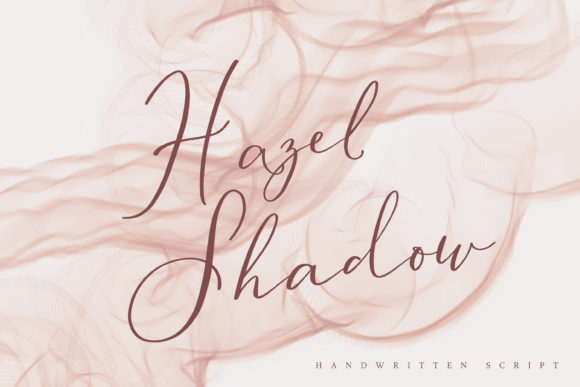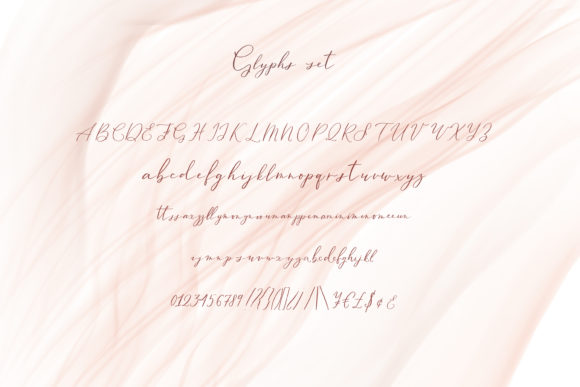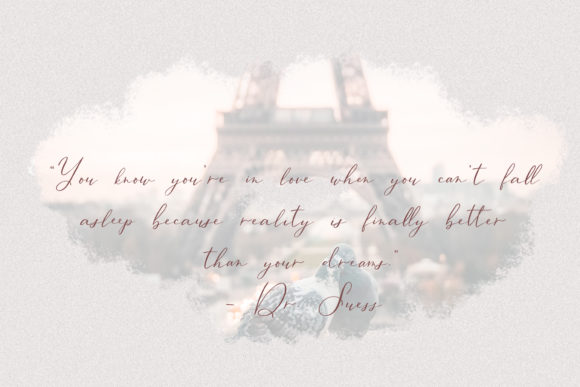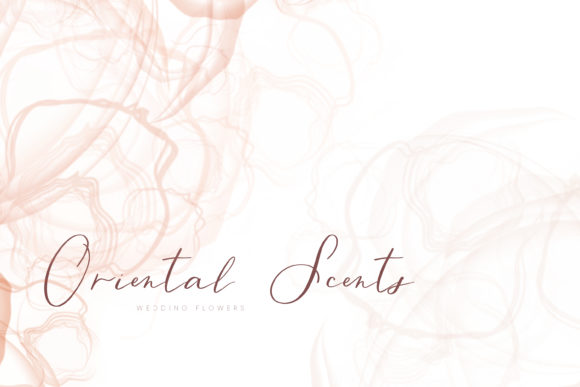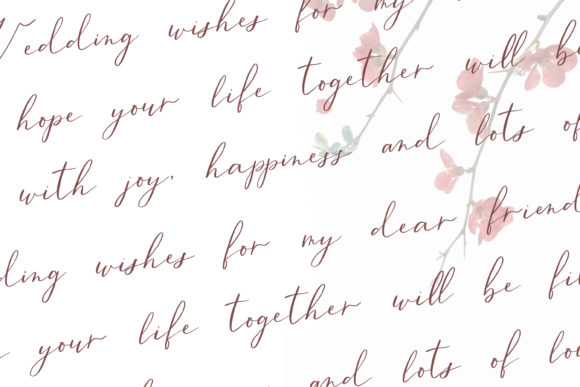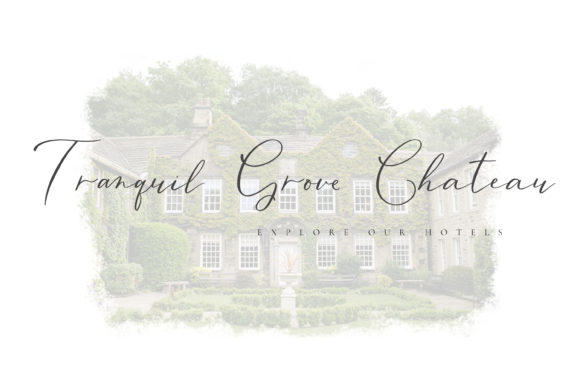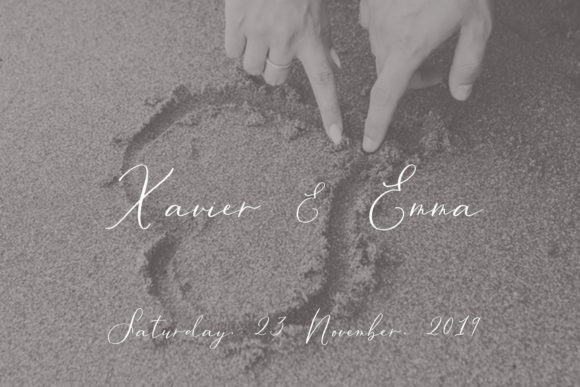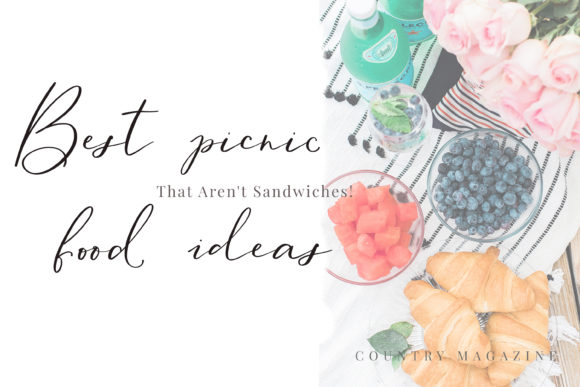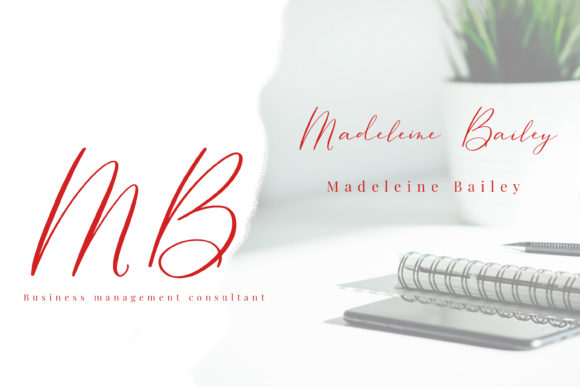
HomeScript FontsHazel Shadow Font Script Fonts Hazel Shadow Font FacebookXPinterestWhatsApp Hazel Shadow Font Poster 2 Hazel Shadow Font Poster 3 Hazel Shadow Font Poster 4 Hazel Shadow Font Poster 5 Hazel Shadow Font Poster 6 Hazel Shadow Font Poster 7 Hazel Shadow Font Poster 8 Hazel Shadow Font Poster 9 About Hazel Shadow Font Hazel Shadow is a beautiful calligraphy script that will easily add a sophisticated charm to any design project. DOWNLOAD NOW People also explored Dellfried Font Ortega Font mallanie Gourmet Font Malayu Yuang Font Amillia Font Raisia Font Quickly Font Antique X Condensed Font 574 0 TagsHazel Shadow Font Previous articleDirandra FontNext articleSweet Christmas Font LEAVE A REPLY Cancel reply Comment: Please enter your comment! Name:* Please enter your name here Email:* You have entered an incorrect email address! Please enter your email address here Website: Save my name, email, and website in this browser for the next time I comment. Personal Use Free Densmore Personal Use Free Read more about this font Barbatrick Personal Use Free Read more about this font Where the Cookies Personal Use Free Read more about this font Merak Personal Use Free Read more about this font BLOG Fonts That Capture the Spirit of New York City New York City is more than just a place—it’s an experience, a rhythm, a visual language... Transform Your Website: Elevate Your Typography with 7 Best Web Font Generators To increase your work productivity, choose the most readable fonts. Elegant Wedding Invitation Fonts – Handwritten & Script Fonts